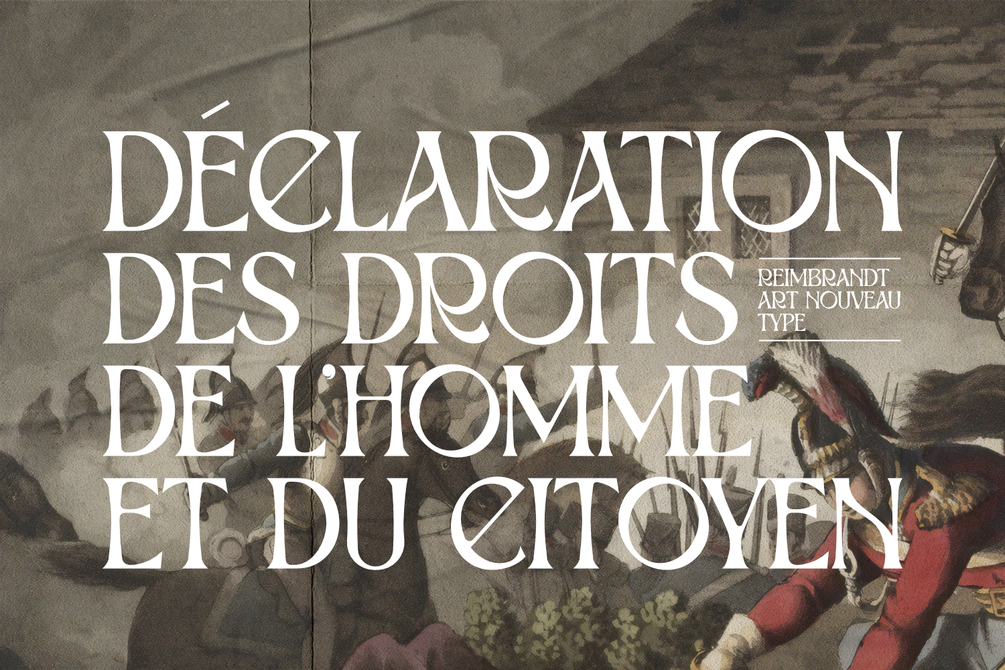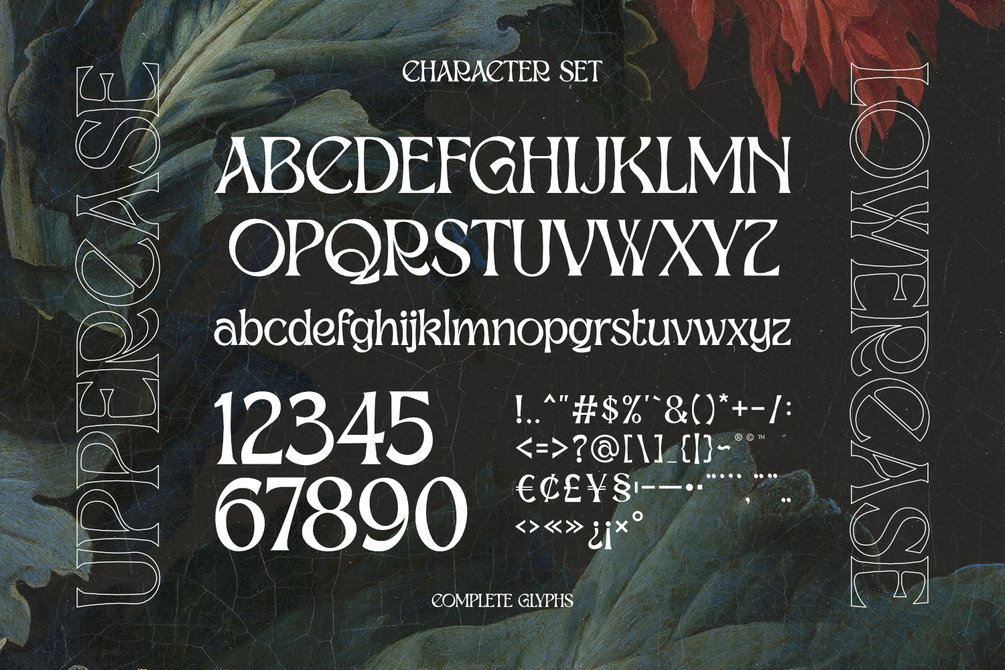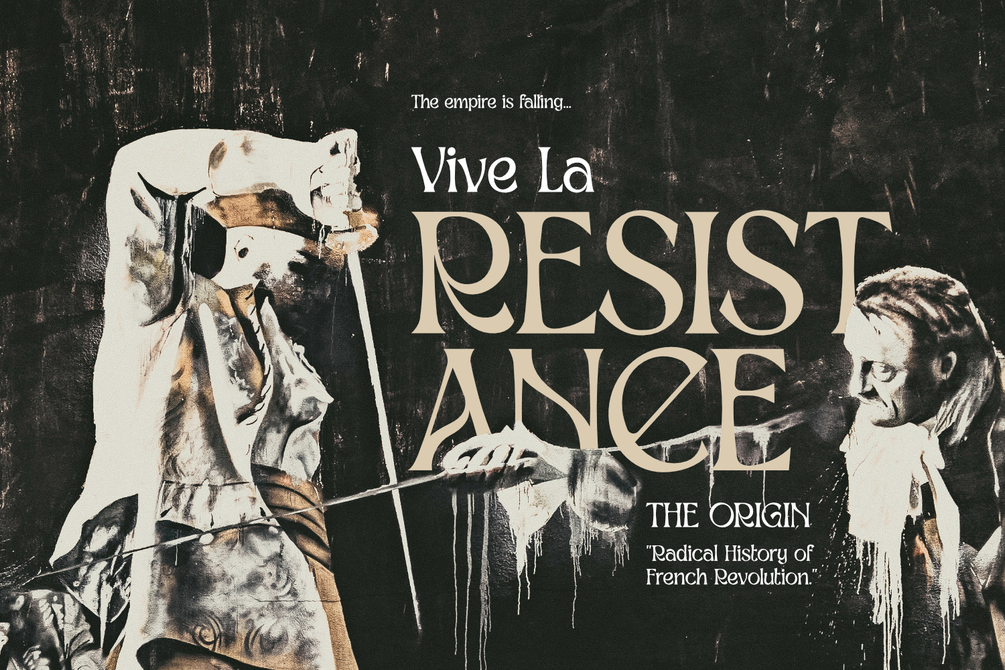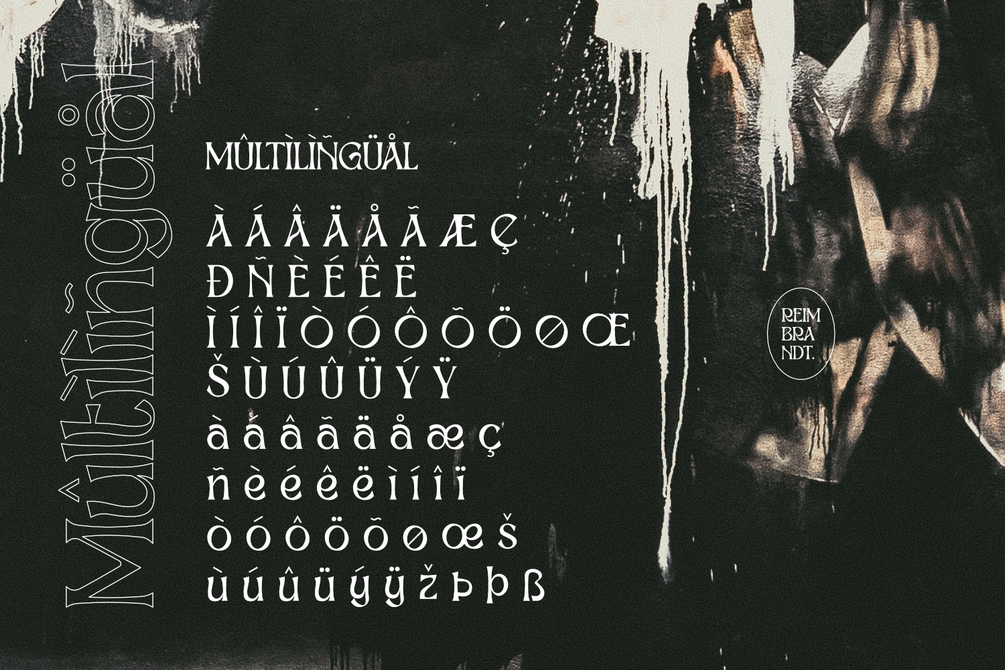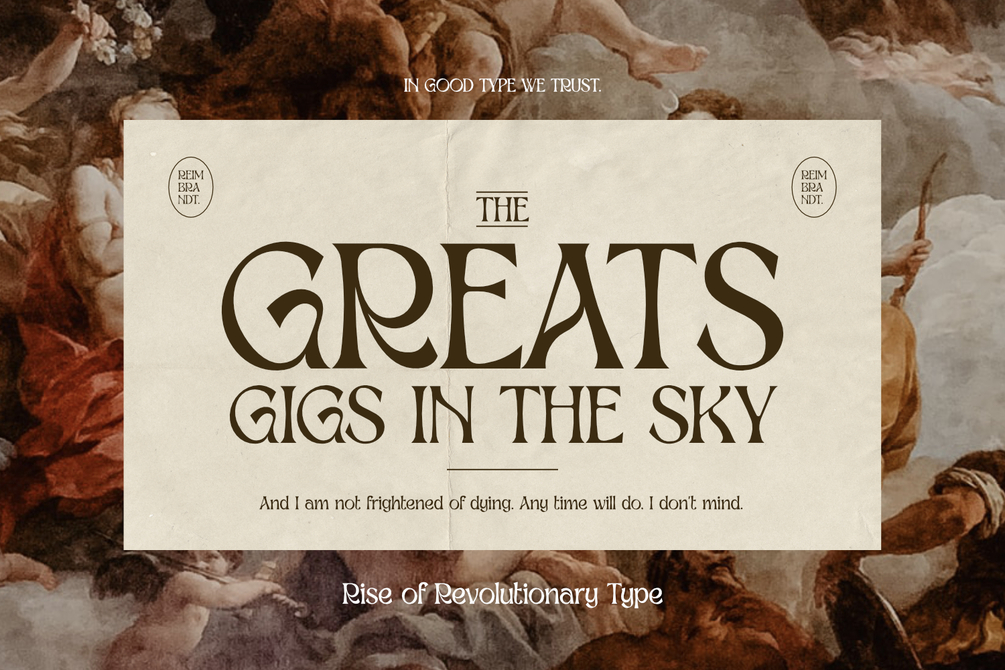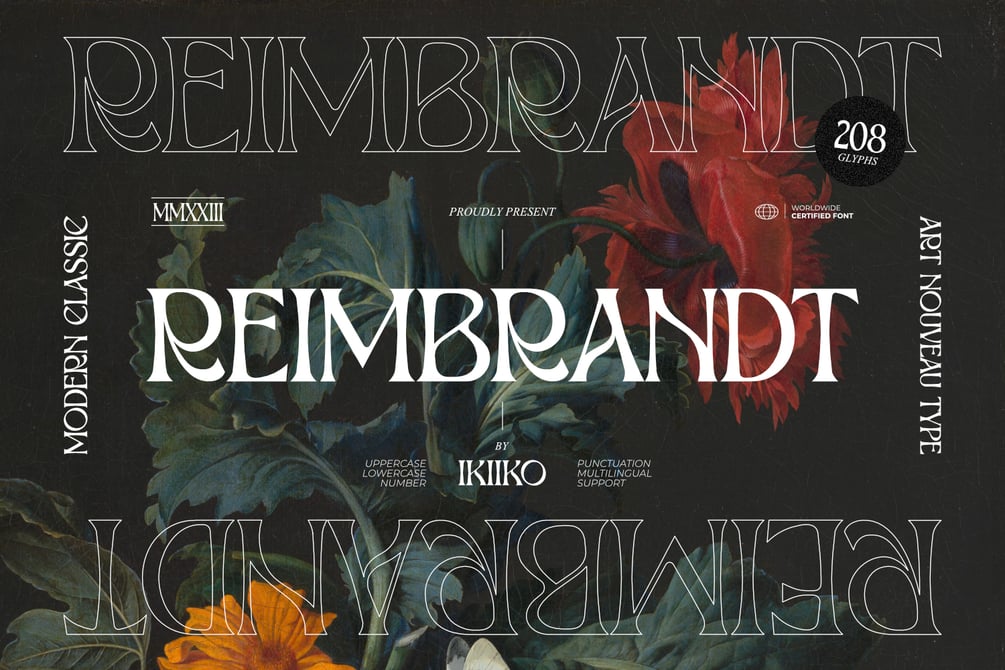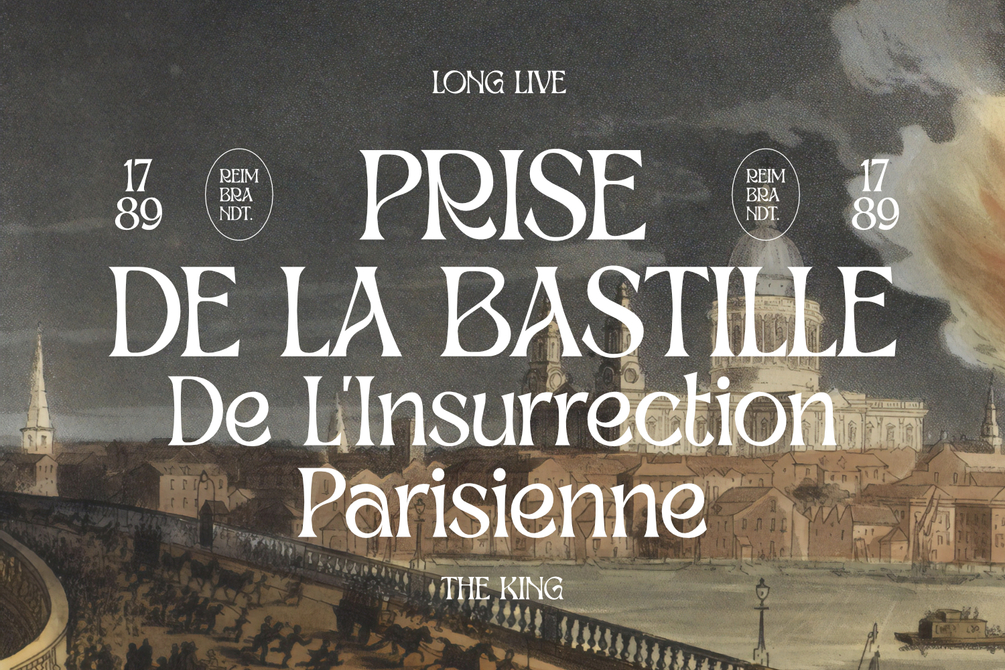
Reimbrandt - Art Nouveau Font
Proudly Present Reimbrandt - Art Nouveau Font, created by ikiiko.
Reimbrandt is a classic typeface that is a perfect representation of the timelessness and romance of the past, inspired by the beautiful Art Nouveau era. This alluring typeface transports you back to a time when elegance and grace were the norm. This font exudes beauty and romance with its simple, decorative shapes reminiscent of the painstaking craftsmanship of the Art Nouveau era.
This typeface is perfect for an vintage vibes, classic & vintage poster layout, fashion look book, book cover, packaging, food & beverages and also good for quotes, or simply as a stylish text overlay to any background image.
• Uppercase & Lowercase
• Number & Punctuation
• Multilingual Support